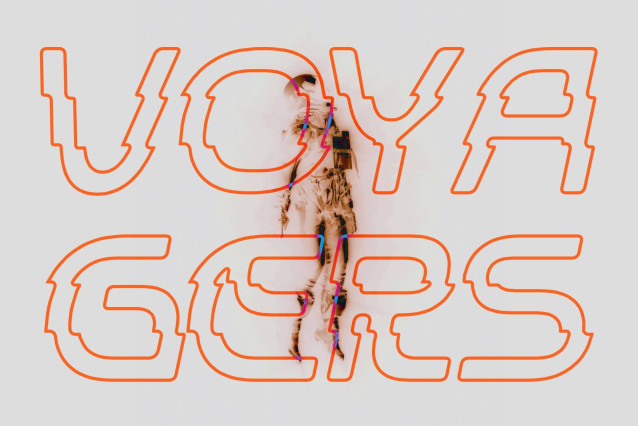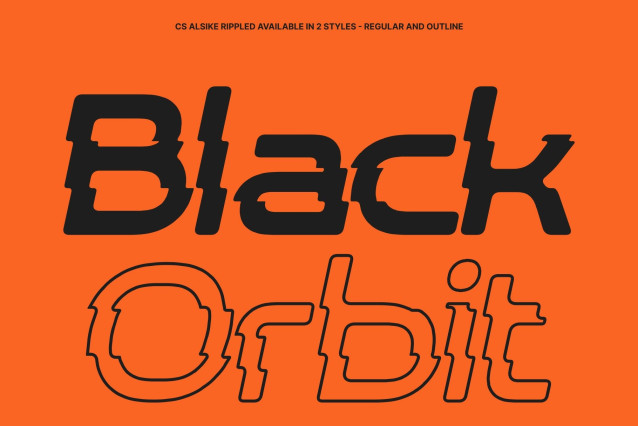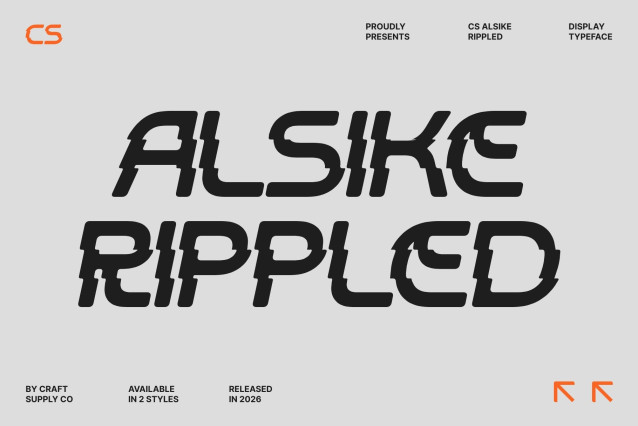
CS Alsike Rippled – Futuristic Font with Liquid Tech Motion
Bold, Geometric, and Forward-Thinking Design
This is a modern futuristic display sans serif built with sharp angles, geometric precision, and a powerful visual presence. The structured letterforms create a sleek and confident typographic voice that immediately communicates innovation and modernity. Its bold construction ensures strong readability while delivering a striking visual identity, making it ideal for projects that aim to feel cutting-edge and forward-looking.
Tech-Inspired Typeface with Modern Precision
Driven by a high-tech aesthetic, this font blends crisp lines and futuristic geometry to create a typeface that feels advanced and intelligent. The clean shapes maintain clarity while the sharp construction adds energy and authority to every composition. This balance between precision and boldness allows the font to feel professional, modern, and visually engaging.